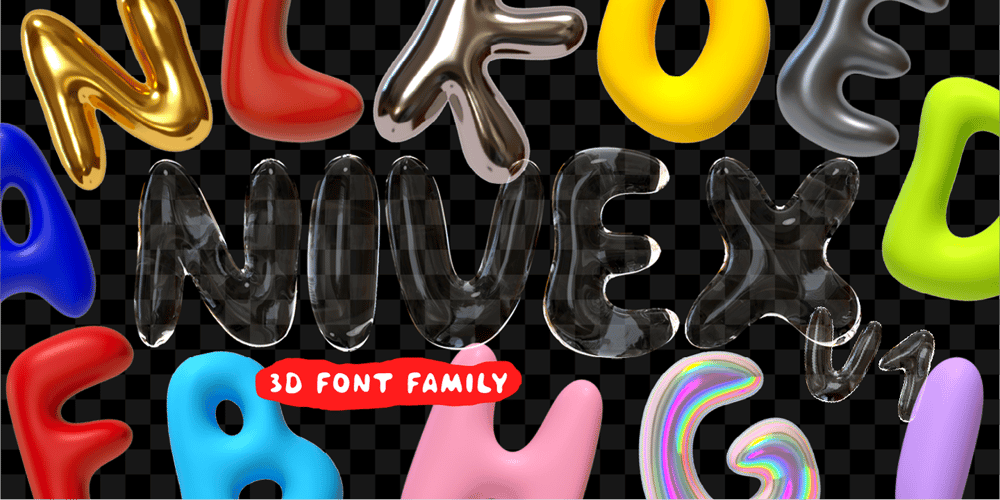
Nivex V1 Font Family was designed by Lauritta Ivanova and published by Luxfont. Nivex V1 contains 17 styles and family package options. Amazing various of 3D fonts in one Nivex V1 family. Super realistic visual appearance of letters in different materials and colors. Great for creating discount marketing offers.Features:- Real 3D effect- Different colors- Matte, Metal & Glass transparent material- Uppercase and lowercase letters are the same- KerningIMPORTANT:- Check the glyphs in the font before buying!- SVG fonts contain raster letters.- Check it www.colorfonts.wtf- Try a FREE DEMO version before buying.ld.luxfont@gmail.com